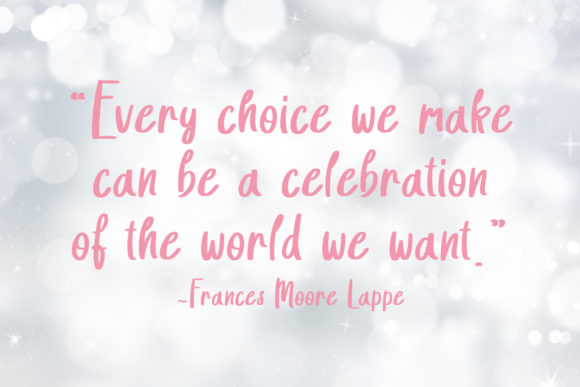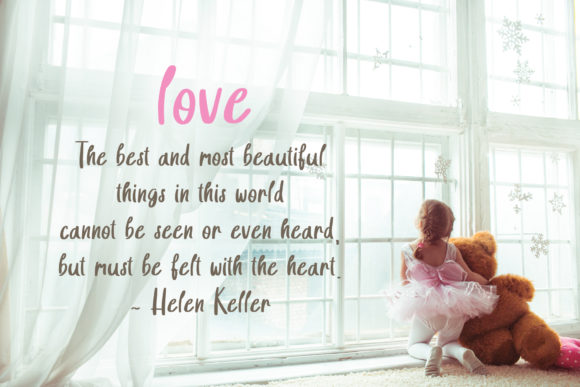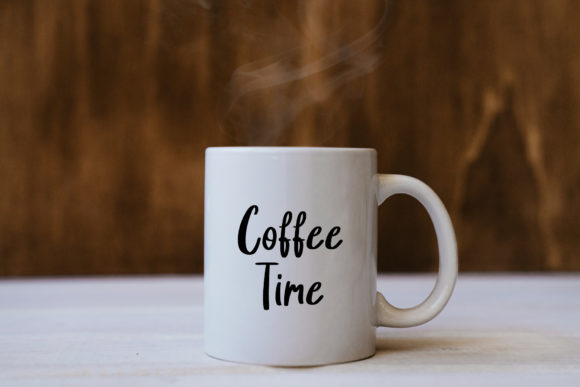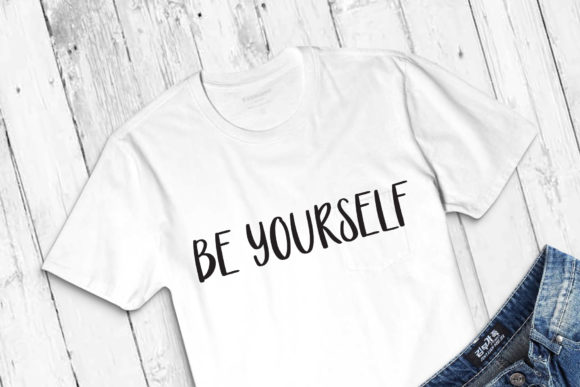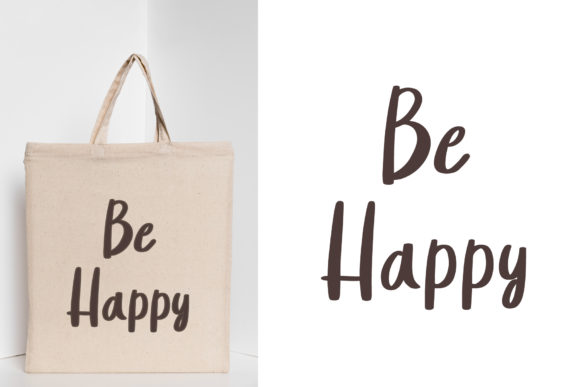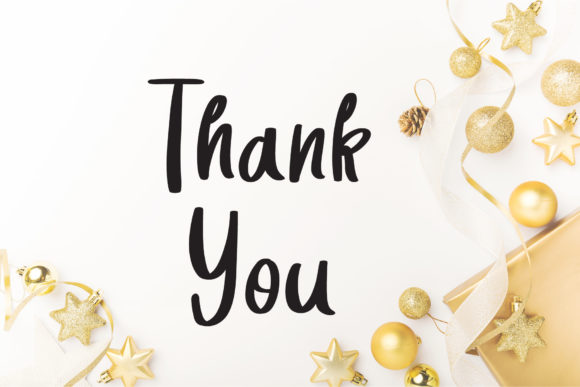
The Perfect Font for Your Celebratory Moments
You know that moment when you’re brainstorming ideas for a social media post, and you just can’t seem to find the right font to match your playful and quirky vibe? Well, you’re in luck because we’re about to introduce you to the perfect font for your celebratory moments – the Celebration Font.
This friendly and cute handwritten font is designed to add a touch of whimsy to your designs. Whether you’re creating posters, cards, or cute greeting cards, Celebration Font is sure to bring a smile to your audience’s faces. Its playful style makes it the perfect fit for designers who want to add a little extra fun to their projects.
As a designer, you know how important it is to have a versatile font that can be used in a variety of settings. Celebration Font is a valuable addition to any designer’s toolkit, and its unique style is sure to set your designs apart from the rest.
Celebration Font Key Features
- Unique Characteristics: Celebration Font features a unique blend of modern and classic elements, with elegant curves and geometric shapes, making it perfect for formal and celebratory occasions.
- Font Style: Celebration Font comes in multiple styles, including Regular, Italic, Bold, and Bold Italic, allowing designers to add depth and emphasis to their text.
Celebration Font Review
Overall, I found the Celebration Font to be a visually appealing choice for headings and titles. ✨ It has a playful, whimsical feel that can add a lot of energy to your design.
The font is highly customizable, allowing you to adjust the size, color, and even add effects like shadows and glows. ✨ This makes it a great choice for designers who want to add some extra flair to their projects.
Here are some of the things that work well with the Celebration Font:
- Its versatility in both digital and print design
- The many customization options available
- Its ability to add a touch of personality to your design
- The font may be difficult to read at very small sizes
- It may not be suitable for body text, as it can be quite ornate
- Some users may find it too flashy or over-the-top
Overall, I would say that the Celebration Font is a great choice for designers who want to add some excitement and energy to their projects. While it may not be suitable for every design, it can be a great tool in the right context.
The Celebration Font is perfect for:
- Creating eye-catching titles and headings.
- Designing party invitations and event materials.
- Adding a festive touch to social media graphics and ads.
For the best results, use the Celebration Font in bold or italic styles to add emphasis and visual interest.
Alternatives to Celebration Font
Great Vibes is a modern, elegant script font that can be used for various design purposes. It’s perfect for creating a sense of sophistication and luxury. When to use: Wedding invitations, luxury product packaging, and high-end branding.
Comparison: Great Vibes is more elegant and sophisticated than Celebration Font. It’s ideal for designs where you want to convey a sense of high-end quality and sophistication.
Lobster is a casual, cursive font that’s perfect for creating a fun and playful atmosphere. It’s ideal for designs where you want to add a touch of whimsy and personality.
Comparison: Lobster is more casual and playful than Celebration Font. It’s great for designs where you want to add a lighthearted and approachable tone.
Pacifico is a beautiful, modern script font that’s inspired by the Pacific Ocean. It’s perfect for creating a sense of calmness and serenity. When to use: Beach-themed designs, travel branding, and relaxation-focused products.